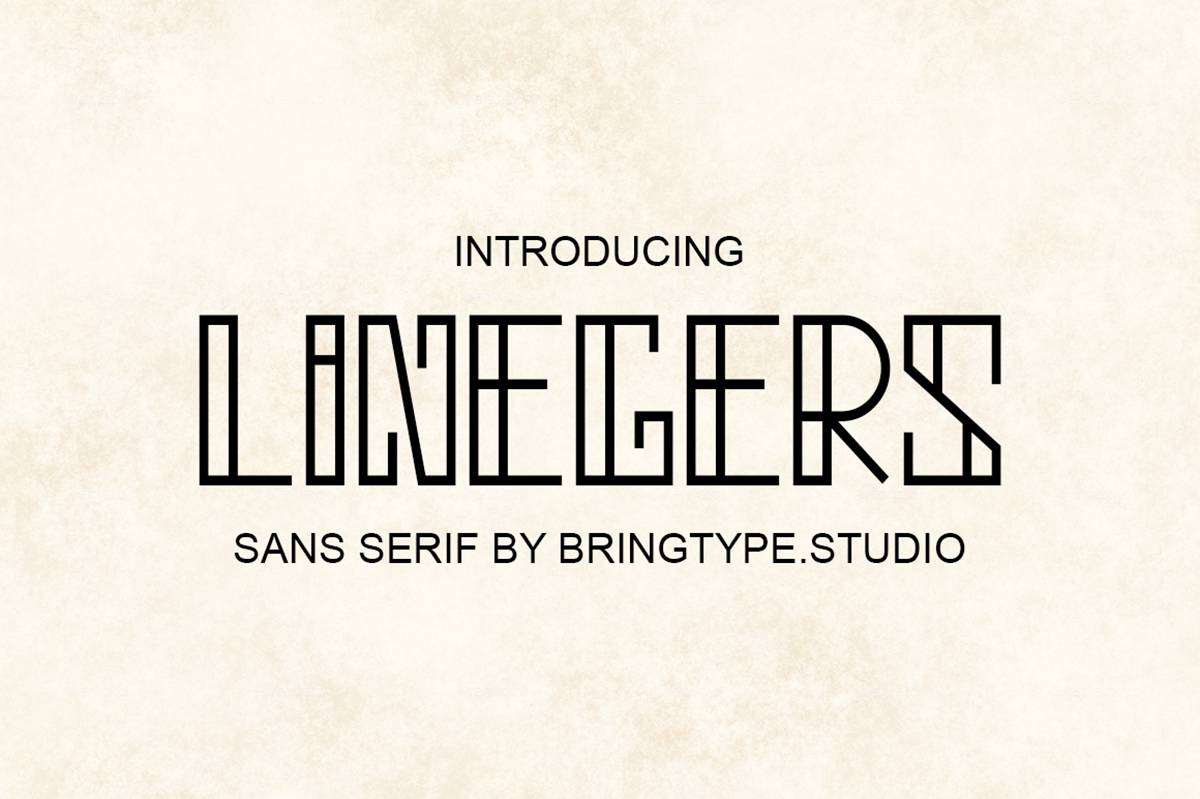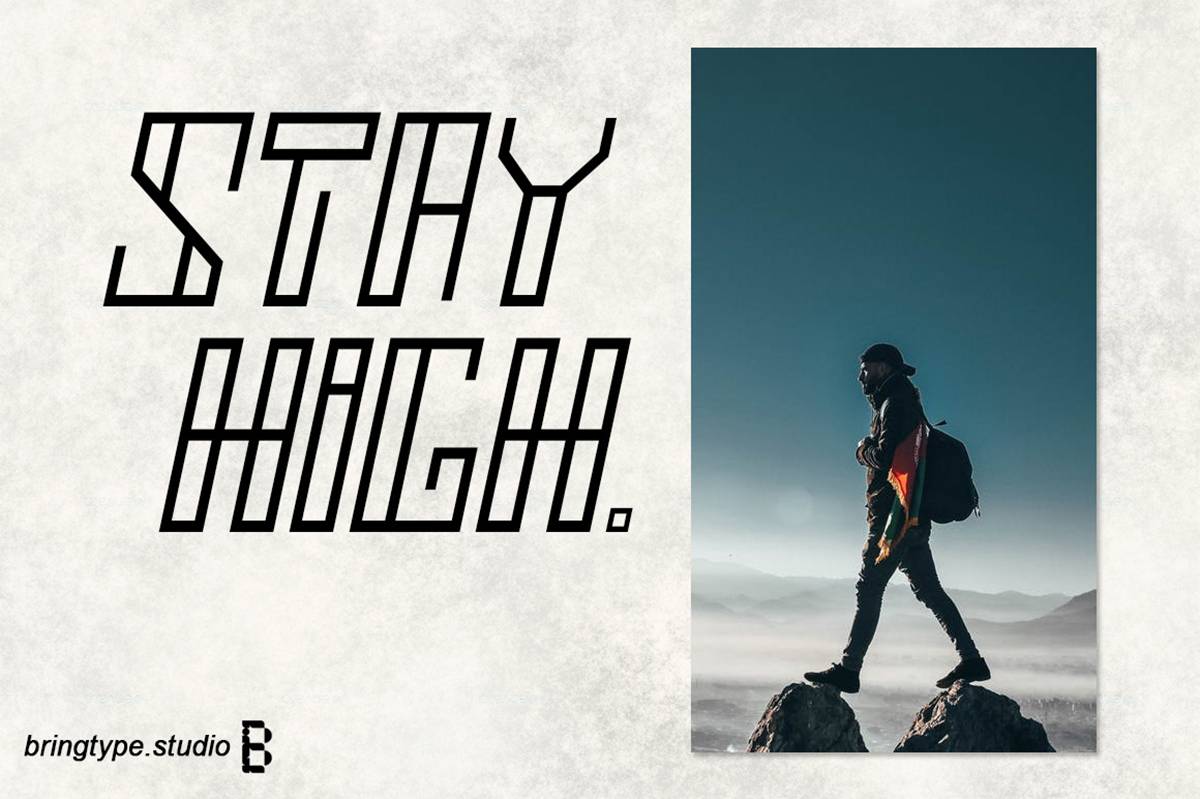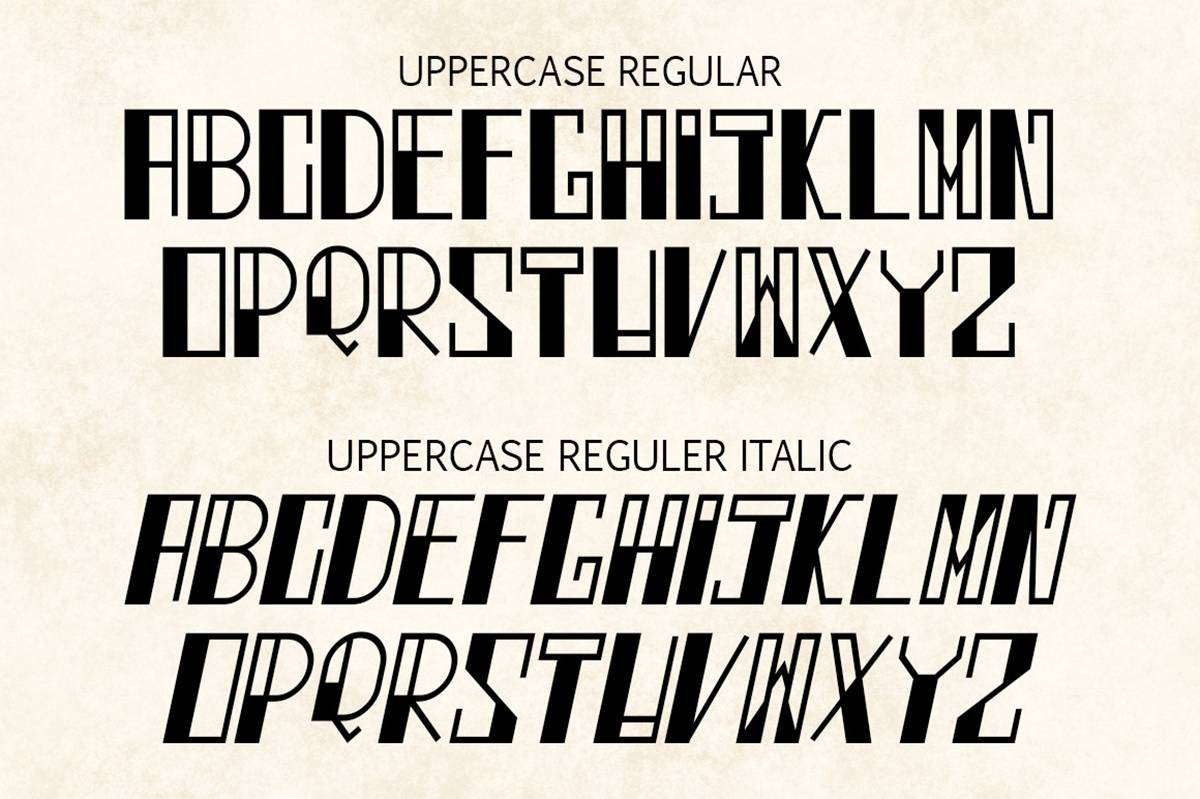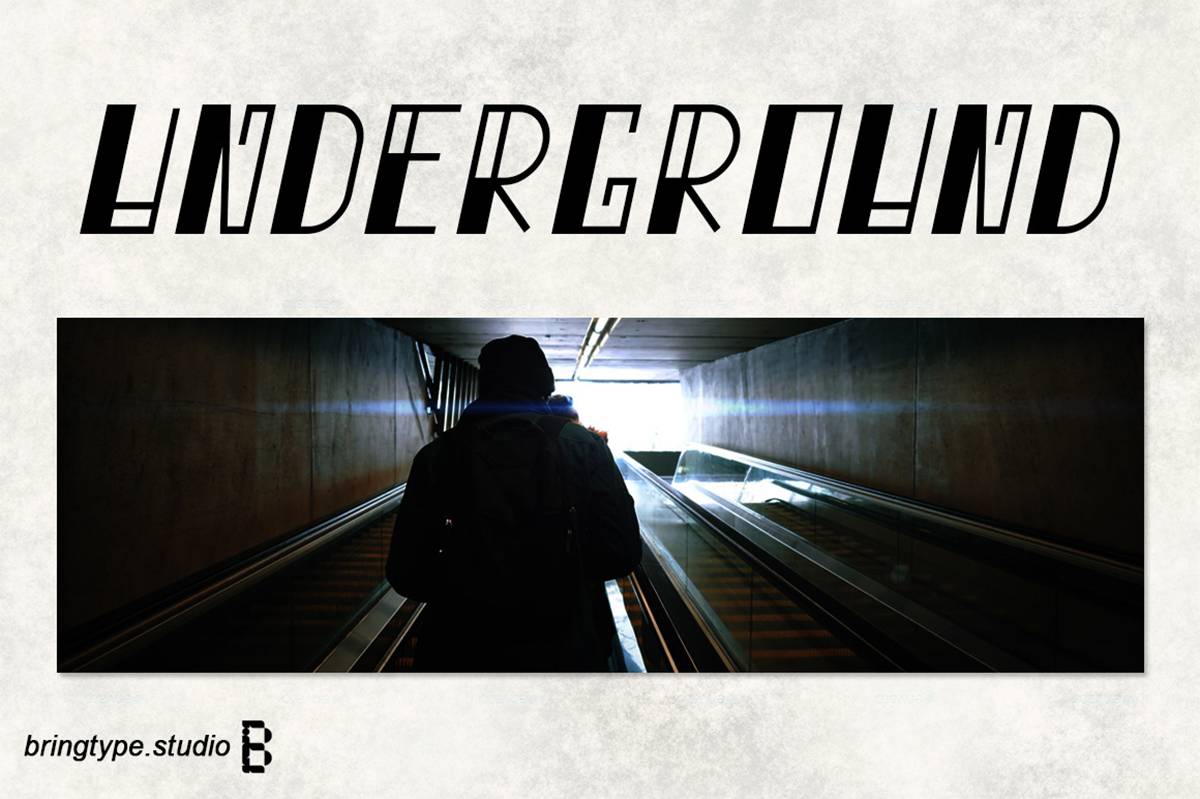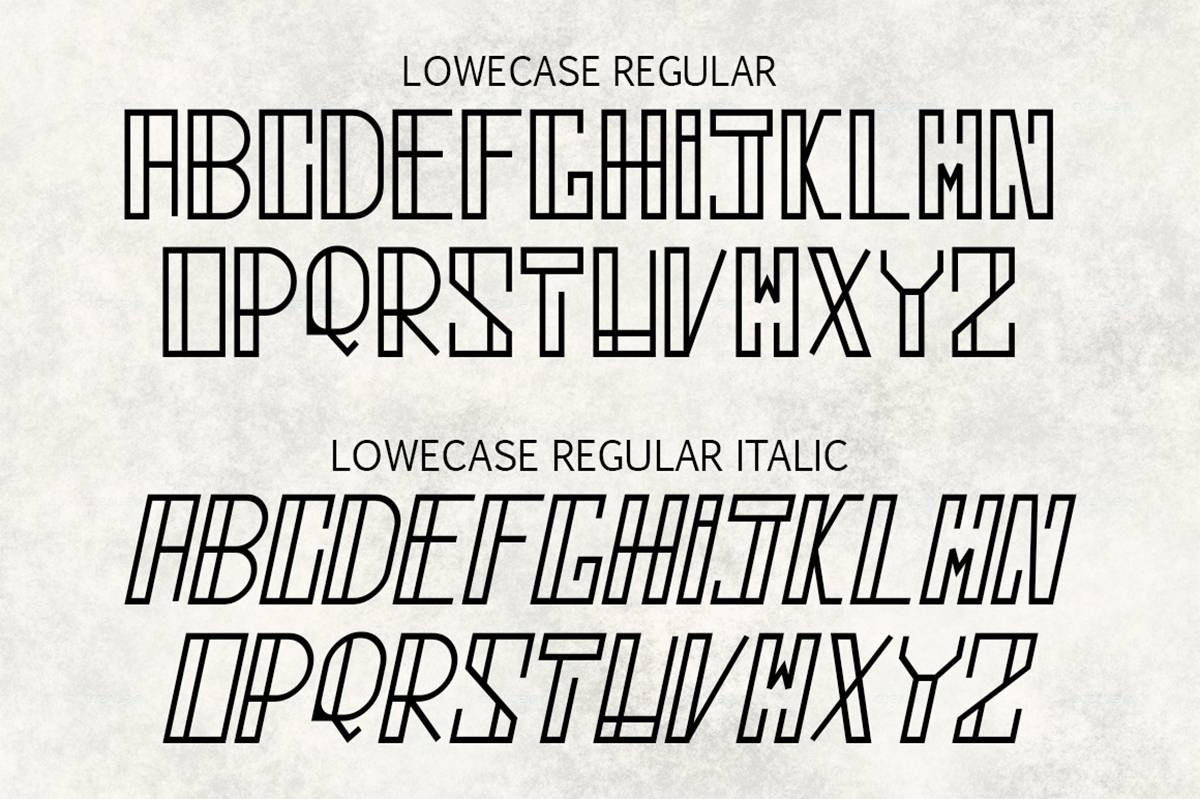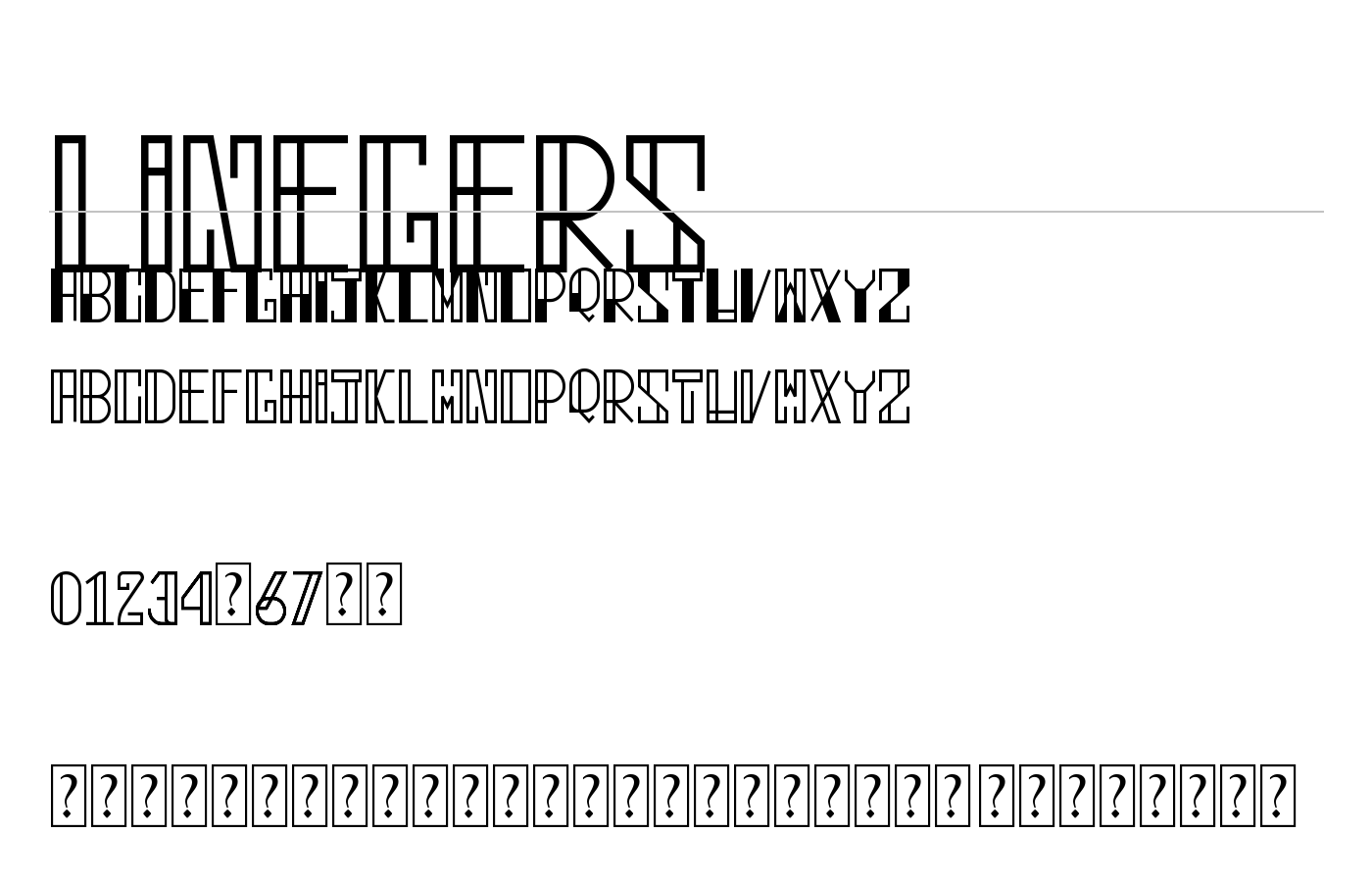
Linegers is a narrow, geometric sans serif font with an ultra-condensed structure and a striking linear style. Its tall, slender letterforms, characterized by sharp angles and minimalist stroke contrasts, give it a modern and technical feel, making it ideal for bold headlines, futuristic branding, and creative display uses where space is limited and visual impact is key.
| Font family | Linegers Font |
| Release date | 2019-04-06 |
| Designer | azizabdul 2019 |